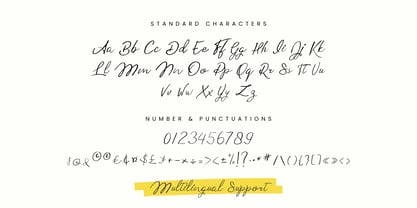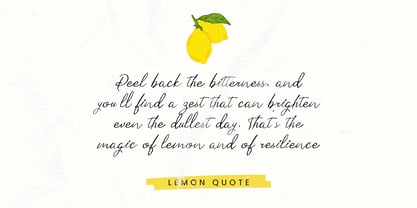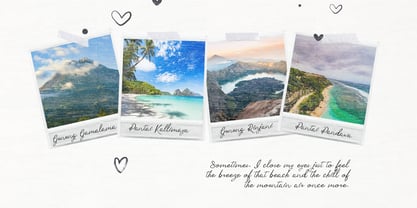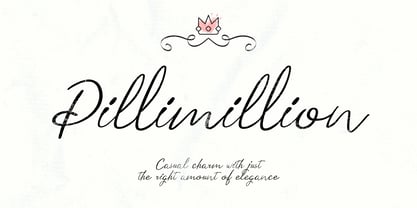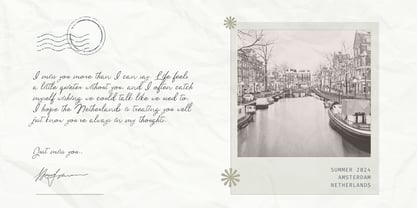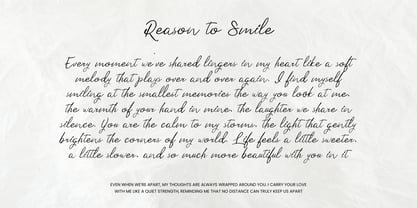
Pillimillion
by Violatype
The Pillimillion Font Family was designed by David Kasidi, Hasna Viola and published by Violatype. Pillimillion contains 1 styles.
Pillimillion is an elegant signature typeface crafted with grace, purpose, and a touch of spiritual sophistication. Inspired by the beauty of feminine expression and classic Arabic calligraphic flow, this font merges modern signature aesthetics with ornamental strokes—ideal for refined, meaningful design work.
Every letterform in Pillimillion carries a delicate balance between fluidity and strength, featuring luxurious swashes and stylish alternates to enhance creative freedom. Whether you’re designing for branding, personal stationery, or ceremonial publications, Pillimillion delivers a distinctive, graceful presence.
Designers: David Kasidi, Hasna Viola
Publisher: Violatype
Foundry: Violatype
Design Owner: Violatype